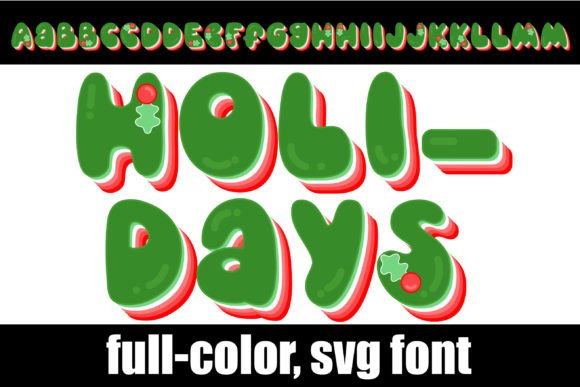
Holi Days Font: A Modern, Hippy Font in a Christmas Color Palette
The Holi Days Font is a unique and vibrant full-color font that features a modern, hippy design in a Christmas color palette. This font is perfect for designers who want to add a touch of personality to their designs. In this article, we will explore the features and benefits of the Holi Days Font, as well as provide guidance on how to install and use it.
What is a Full-Color Font?
A full-color font, also known as an OpenType full-color (SVG) font, is a type of font that features a range of colors and styles. Unlike traditional fonts, which are limited to a single color, full-color fonts can be used to create complex and colorful designs. The Holi Days Font is an example of a full-color font that features a modern, hippy design in a Christmas color palette.
Benefits of Using Full-Color SVG Fonts
There are many benefits to using full-color SVG fonts like the Holi Days Font. Here are some of the advantages:
- Versatility: Full-color SVG fonts can be used for a variety of projects, from logos and branding to web design and print.
- Scalability: SVG fonts are vector-based, which means they can be scaled to any size without losing quality.
- High Quality: Full-color SVG fonts are high-quality and will not lose their resolution when scaled.
Using the Holi Days Font in Your Designs
The Holi Days Font is a versatile font that can be used in a variety of designs. Here are some ideas:
- Logos and Branding: Use the Holi Days Font to create a unique and colorful logo for your business or brand.
- Web Design: Add a touch of personality to your website with the Holi Days Font.
- Print Design: Use the Holi Days Font in your print designs, such as brochures, flyers, and posters.
- Social Media Graphics: Create colorful social media graphics with the Holi Days Font.
Tips for Getting the Most Out of the Holi Days Font
Here are some tips for getting the most out of the Holi Days Font:
- Experiment with Different Colors: The Holi Days Font features a range of colors, so experiment with different color combinations to find the one that works best for your design.
- Use it with Other Fonts: The Holi Days Font can be paired with other fonts to create a unique and interesting design.
- Scale it Up or Down: The Holi Days Font is scalable, so don’t be afraid to experiment with different sizes.
The Holi Days Font is a unique and versatile full-color font that can add a touch of personality to your designs. With its modern, hippy design in a Christmas color palette, it’s perfect for designers who want to create something different. By following the installation and usage guidelines outlined in this article, you can get the most out of the Holi Days Font and create stunning designs.